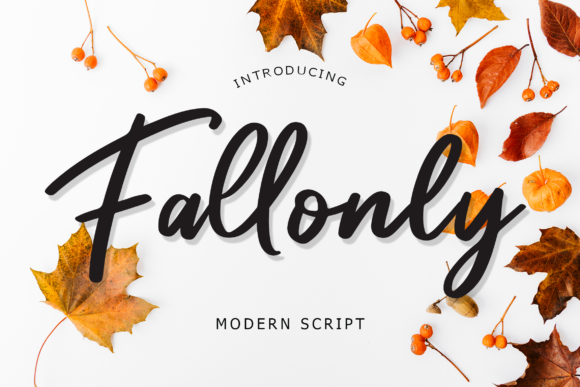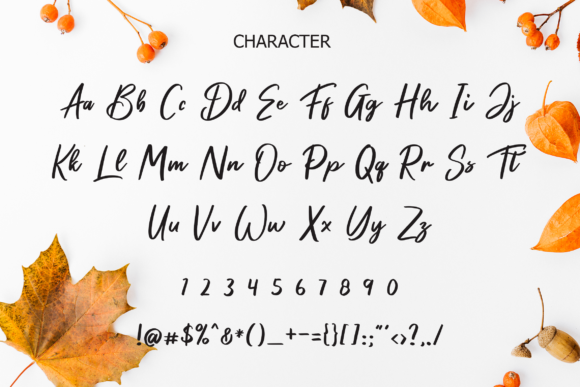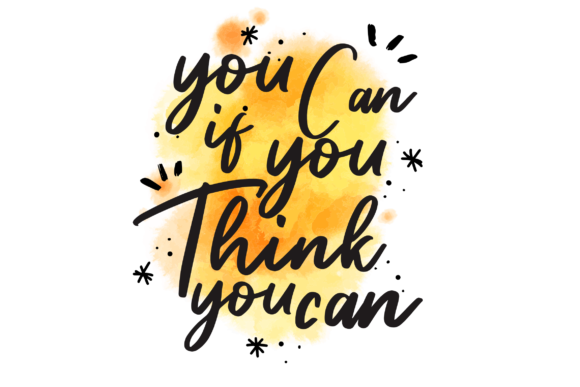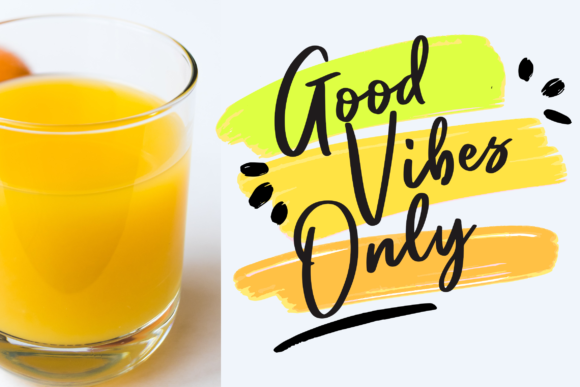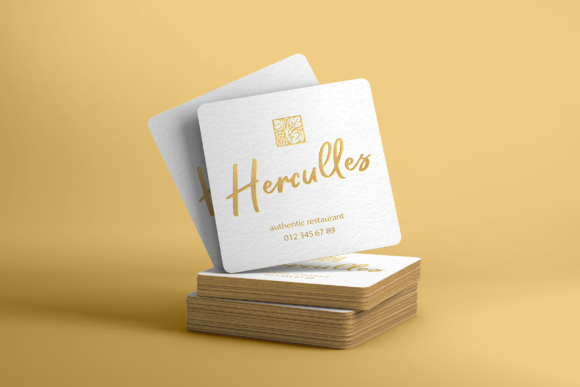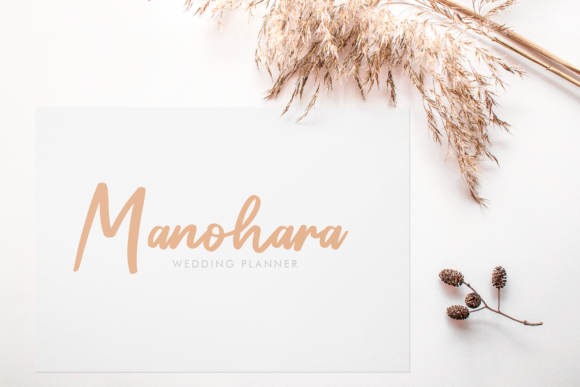
Fallonly Font
About Fallonly Font
Fallonly is a playfully modern script with gorgeous letters. It will effortlessly take any design idea to the next level!